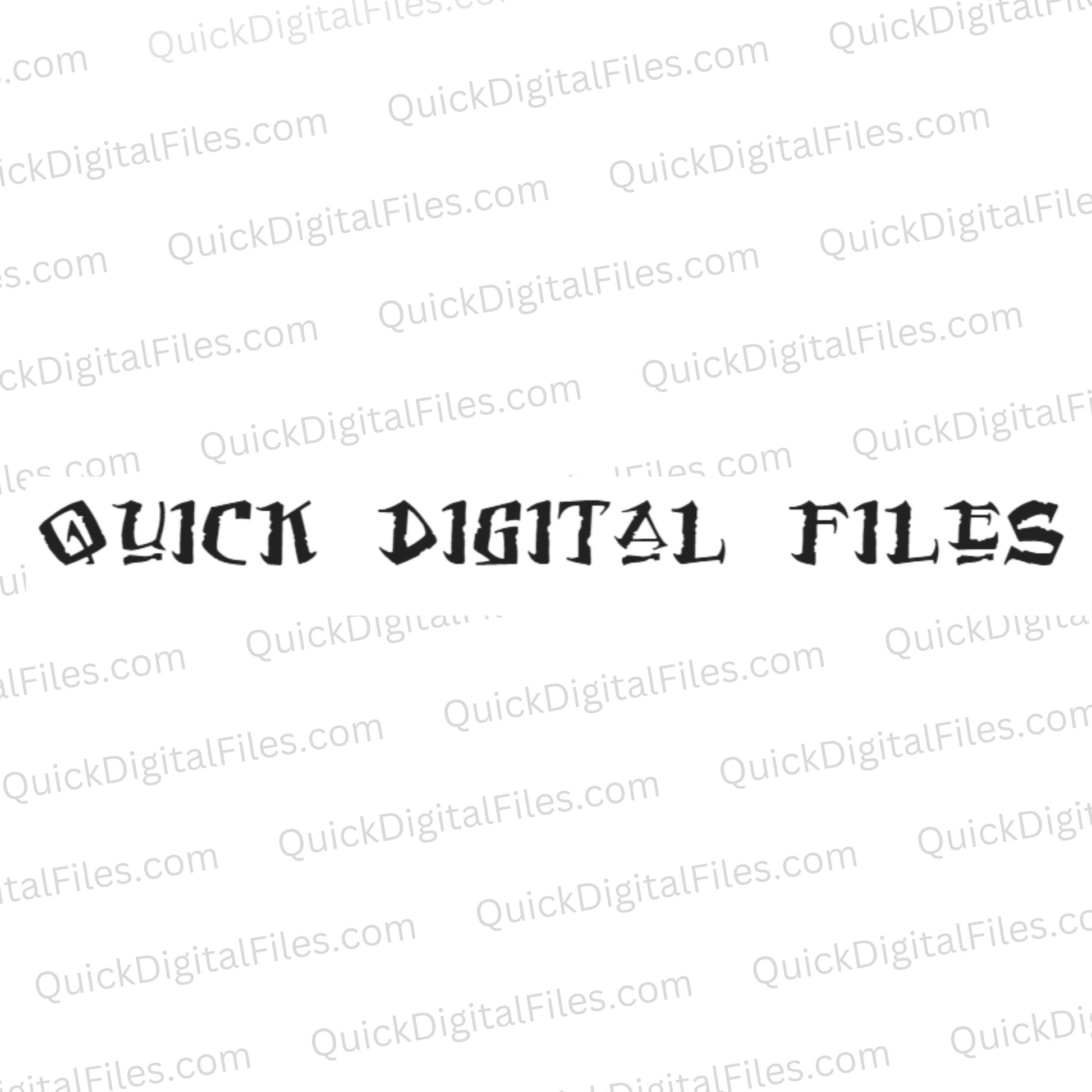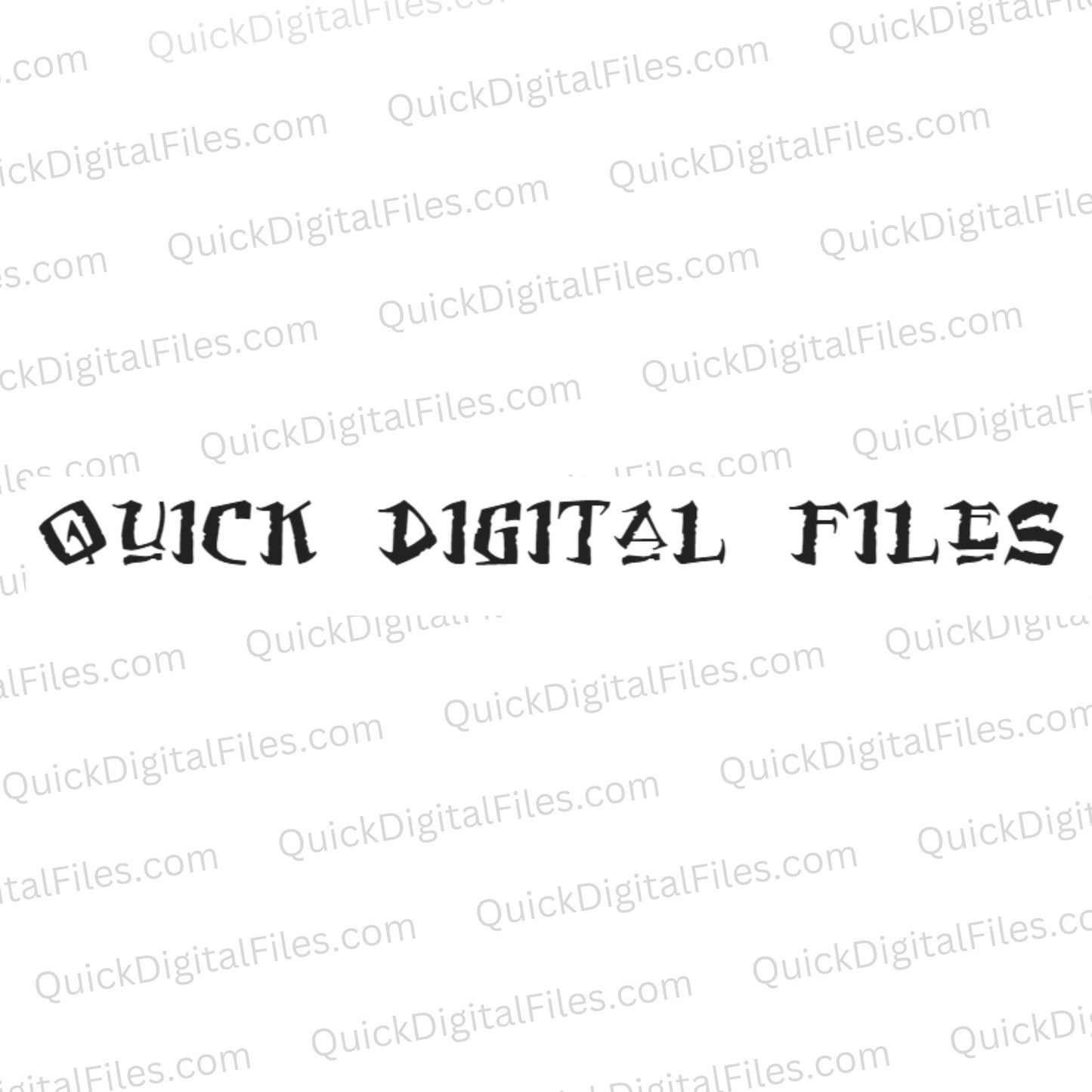
Moana: Font
Elevate your design projects with the Moana Font TTF, a unique and funky typeface that adds a touch of creepiness to any text. This versatile font supports over 34 languages, making it perfect for global use. Its distinctive style is ideal for a variety of creative applications, from graphic design to web development. FREE FONT!
- Funky and Creepy Style: The Moana Font features a unique, almost creepy look that stands out in any design.
- Versatile Use: Perfect for logos, posters, digital media, invitations, and more.
- Font Style: Funky, Creepy